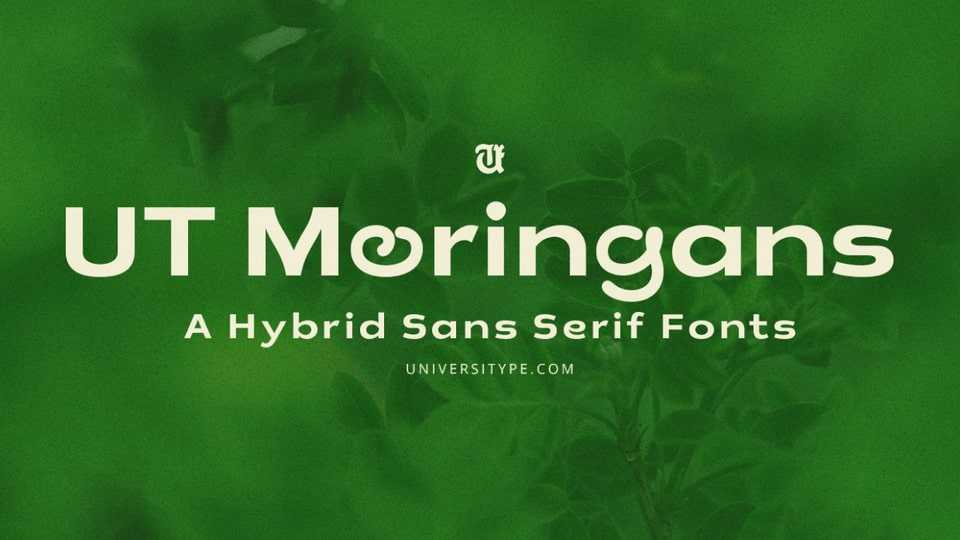
Download UT Moringans font, a manifestation of the remarkable moringa leaf’s elegant beauty into typography, that seamlessly transitions between professional and playful vibes.